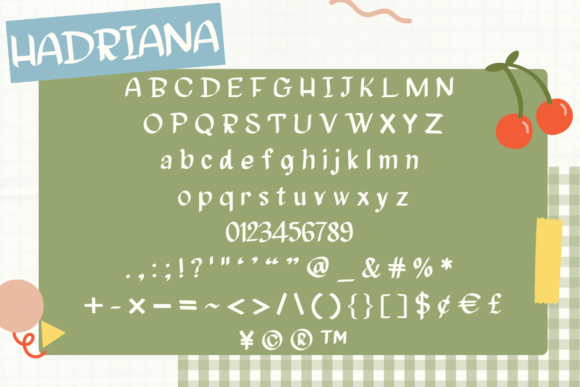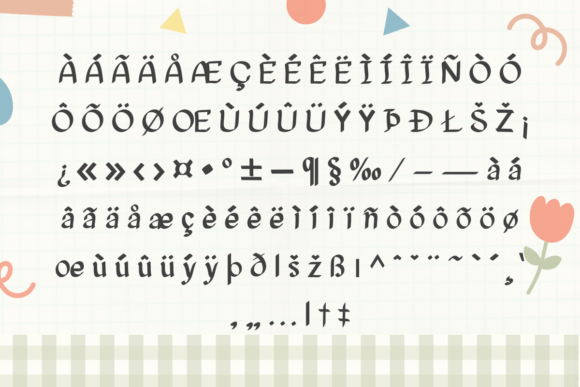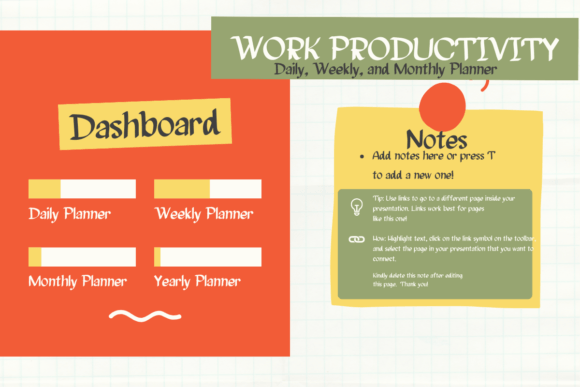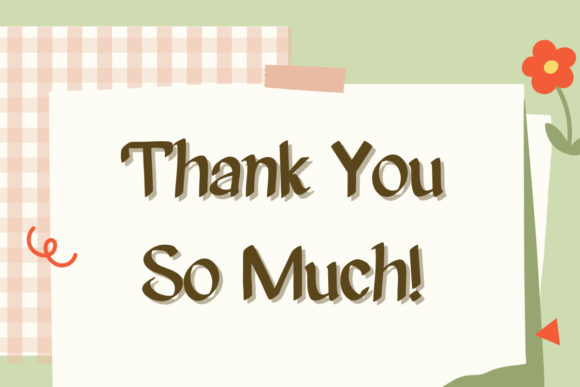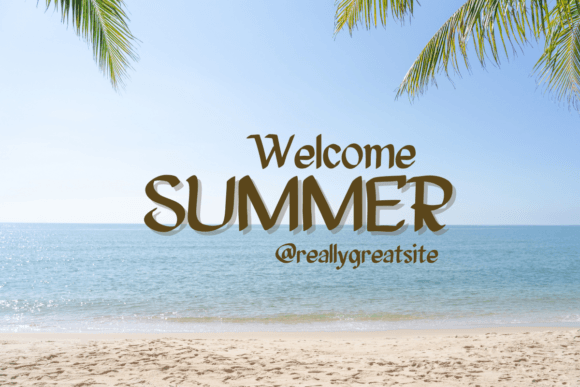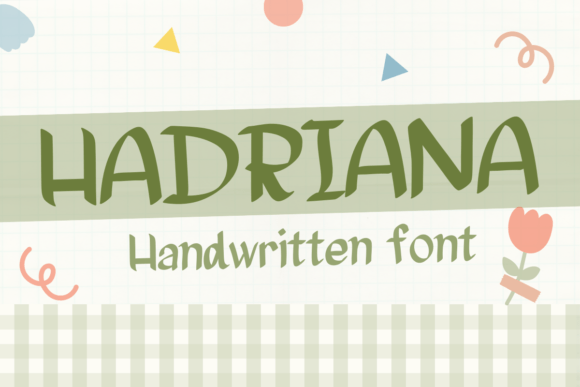
Introducing Hadriana Font: The Cute Handwritten Font for Creative Expression
Are you a designer, crafter, or simply someone who loves to express themselves through creative writing? Look no further than Hadriana Font, a charming handwritten font that’s perfect for taking notes, writing a diary, or making greeting cards. But its uses don’t stop there – this versatile font can be used for a wide range of design projects, from banners and content to mugs, cards, shirts, stationery, social media posts, and more!
The Charm of Hadriana Font
Hadriana Font is a beautifully crafted handwritten font that’s sure to capture the hearts of designers and crafters alike. Its cute and playful style makes it perfect for projects that require a personal touch, such as:
• Note-taking: Add a touch of personality to your notes and journals with Hadriana Font.
• Diary writing: Make your diary entries feel more special with this charming font.
• Greeting cards: Create one-of-a-kind greeting cards for special occasions, such as birthdays, holidays, and more.
Beyond the Basics: Exploring the Versatility of Hadriana Font
While Hadriana Font is perfect for personal and creative projects, its uses extend far beyond the basics. Here are some ideas for incorporating this font into your design work:
• Banners: Use Hadriana Font to create eye-catching banners for events, promotions, or social media campaigns.
• Content: Add a touch of personality to your blog posts, articles, or website content with this charming font.
• Mugs: Design personalized mugs with Hadriana Font for a unique and thoughtful gift.
• Cards: Create custom cards for special occasions, such as weddings, baby showers, or graduations.
• Shirts: Design t-shirts, hoodies, or other apparel with Hadriana Font for a fun and stylish look.
• Stationery: Use this font to create custom stationery, such as letterheads, envelopes, or notebooks.
• Social media posts: Add a touch of personality to your social media posts with Hadriana Font.
Why Choose Hadriana Font?
So why choose Hadriana Font for your design projects? Here are just a few reasons:
• Unique and playful style: Hadriana Font has a one-of-a-kind, handwritten style that’s sure to stand out.
• Versatility: This font can be used for a wide range of design projects, from personal to commercial.
• Ease of use: Hadriana Font is easy to read and works well in a variety of contexts.
Tips for Using Hadriana Font
To get the most out of Hadriana Font, here are a few tips to keep in mind:
• Pair with other fonts: Experiment with pairing Hadriana Font with other fonts to create a unique look.
• Use in combination with images: Add visual interest to your designs by combining Hadriana Font with images or graphics.
• Experiment with colors: Try out different colors and color combinations to find the perfect look for your design.